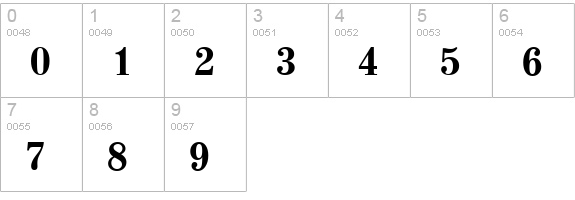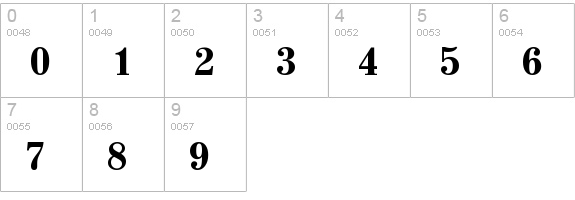
ValenciaSerial-Xbold-Regular is the standard, neutral variant in the ValenciaSerial typeface family \xE2\x80\x94 well suited to general body text, paragraphs, and standard typographic work.
ValenciaSerial-Xbold-Regular is a modern and stylish font that exudes confidence and sophistication. With its bold and eye-catching design, this font is perfect for making a statement in your projects. The clean lines and sharp edges of ValenciaSerial-Xbold-Regular give it a contemporary look that is sure to capture attention. What makes this font even more appealing is the fact that it is available for free download at FontsMarket.com. Whether you are working on a professional design project or simply looking to add a touch of elegance to your personal creations, ValenciaSerial-Xbold-Regular is a versatile font that will not disappoint. Download it today and elevate your designs with this striking typeface.